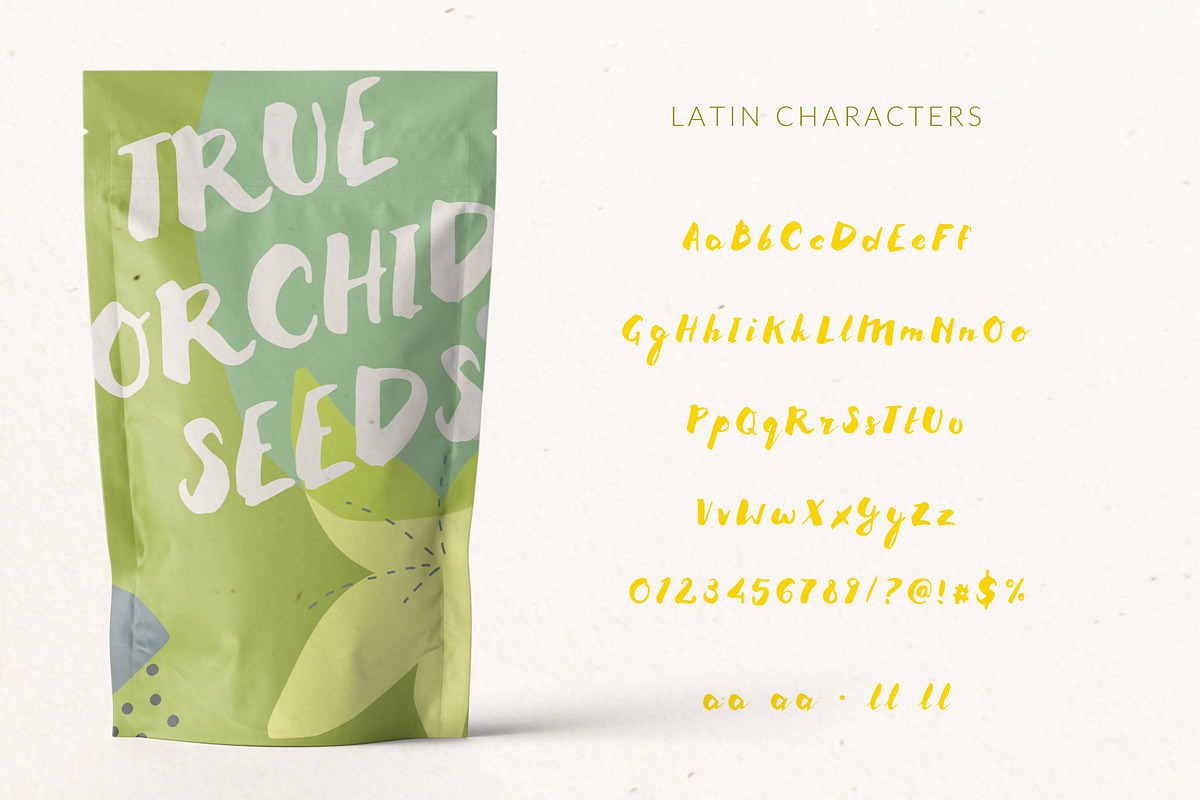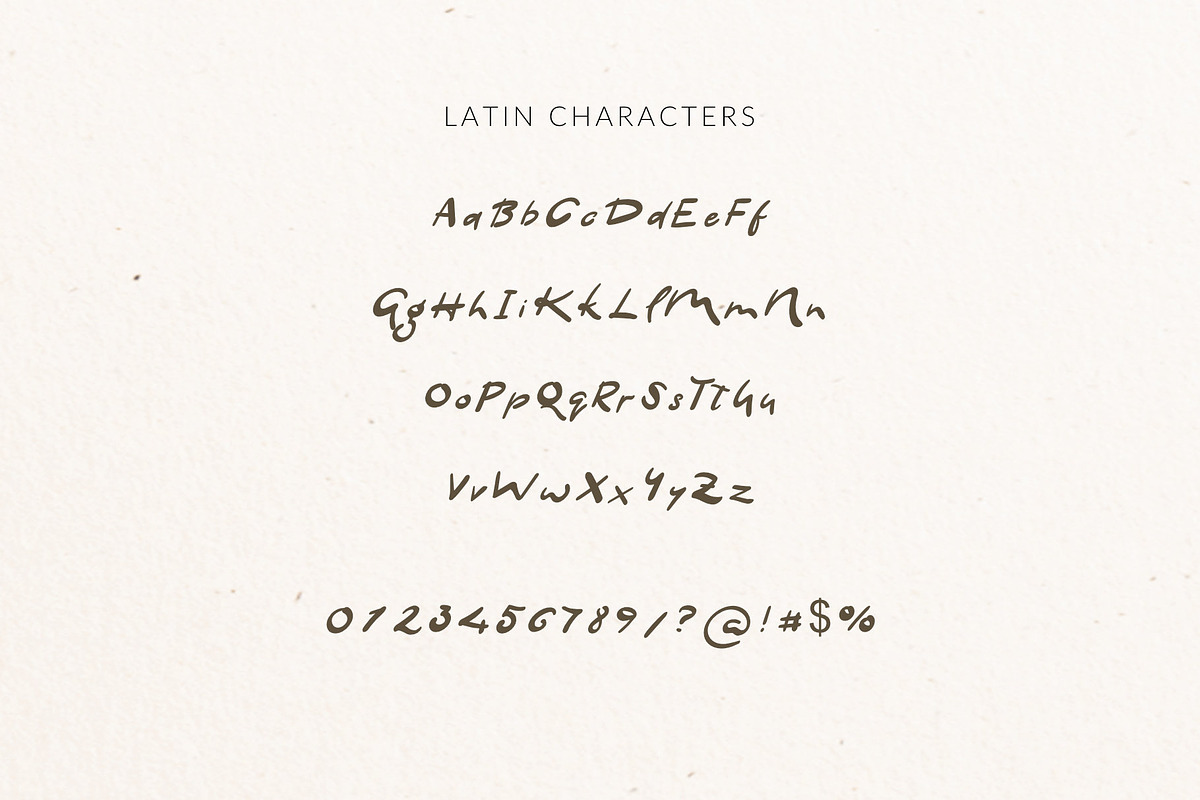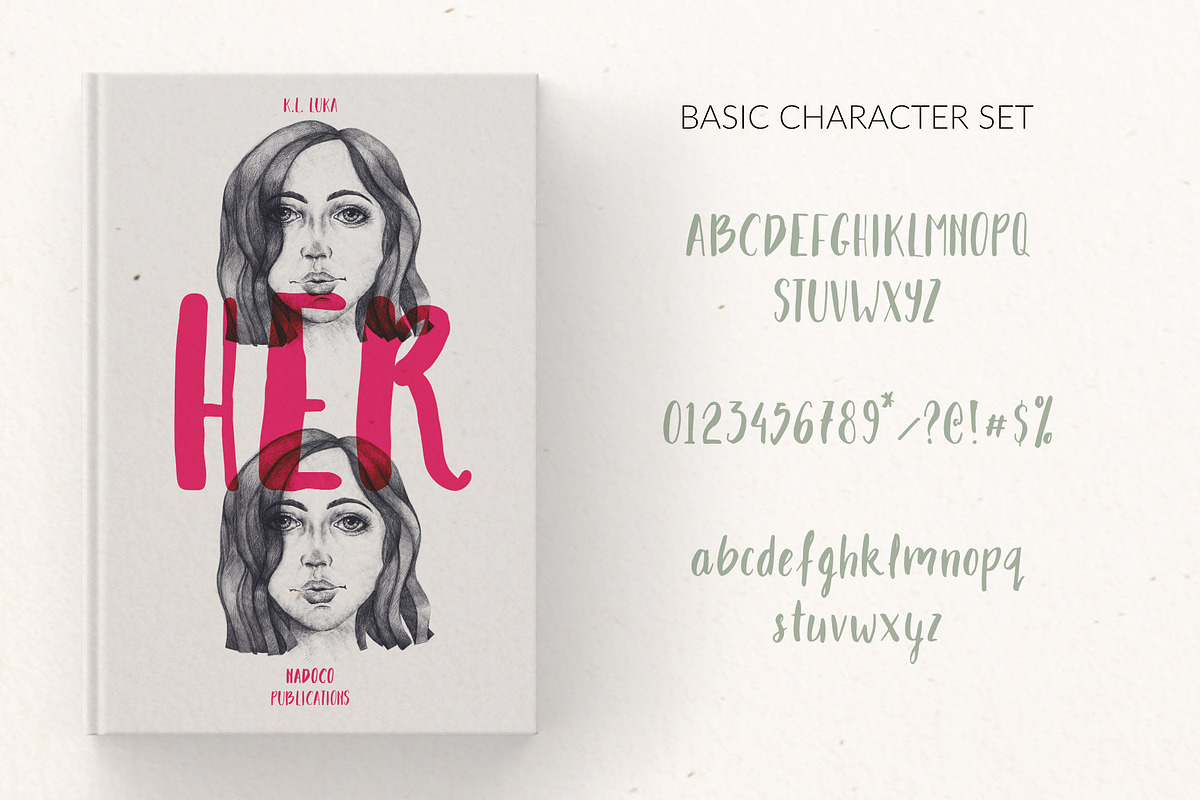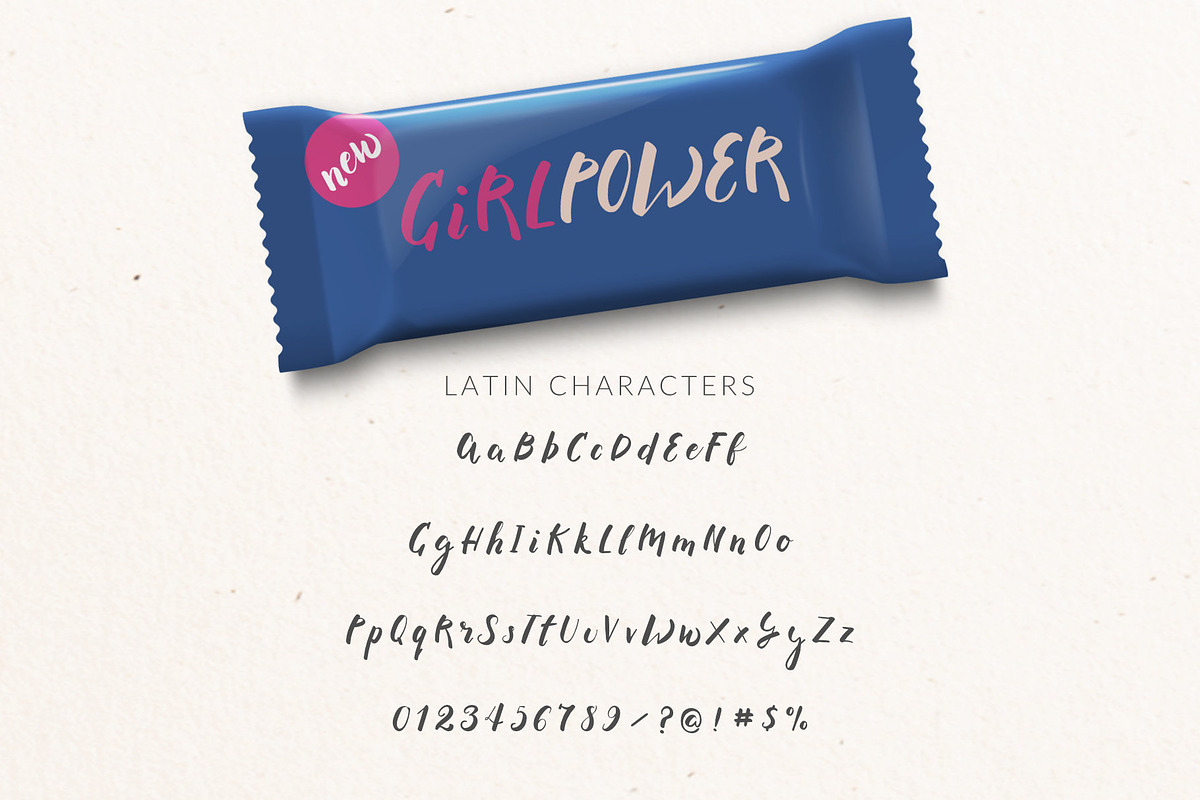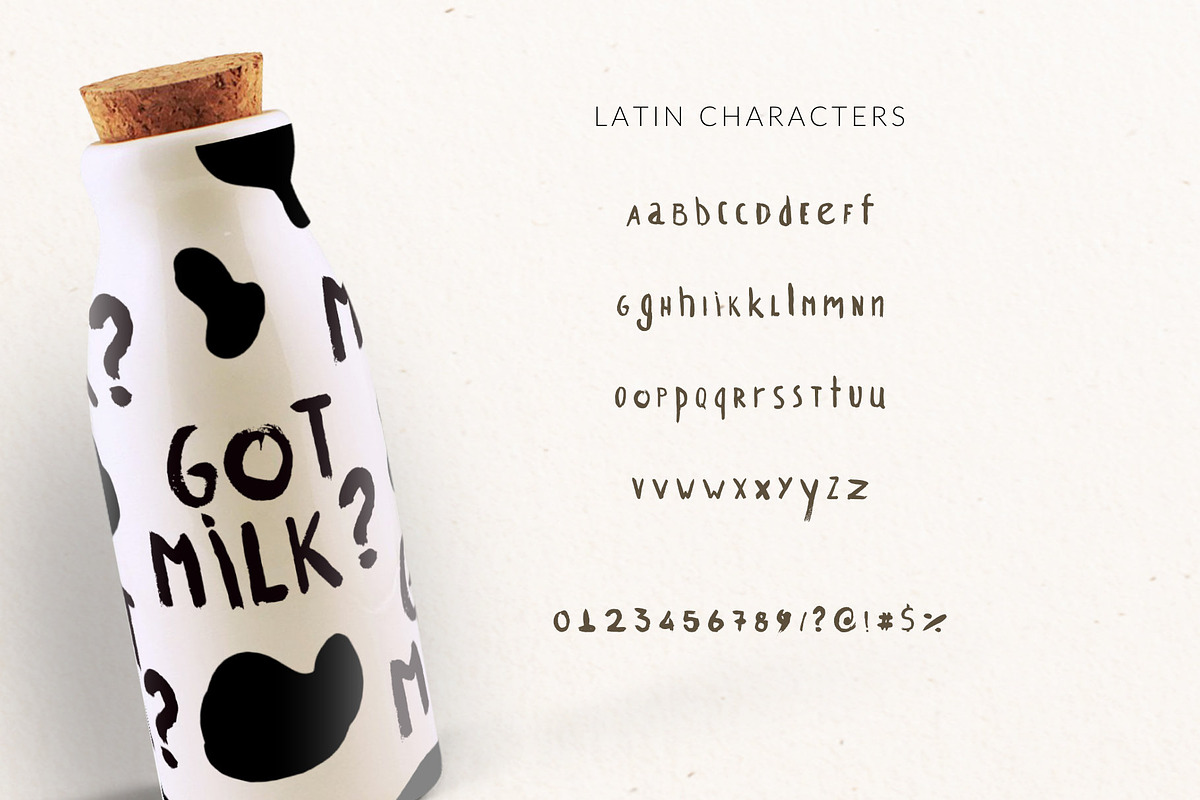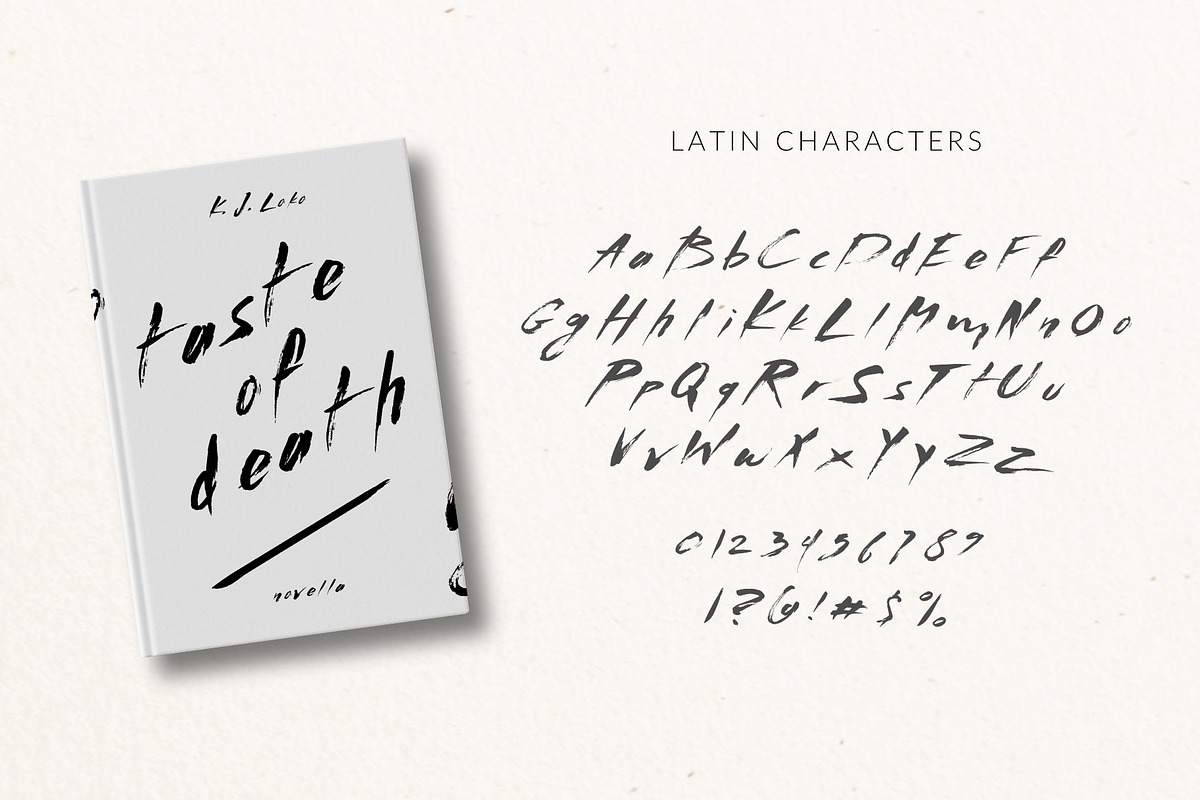
Brush Greek Font Pack
This is a discounted Font Pack of all my brush fonts. All the fonts in the pack are multilingual lettering fonts with Greek (of course), Latin characters, and diacritics.
Brush fonts are ideal for the food industry, for food branding, for restaurant menus and packaging. Additionally you can use Brush Fonts for lovely wedding and baby shower invitation designs. Especially if you are looking for a font for Instagram quote posts or any other social media content, this pack is for you!
Brush Greek Font Pack by Greek fonts by nantia.co fits naturally into Branding, posters, packaging, typography.